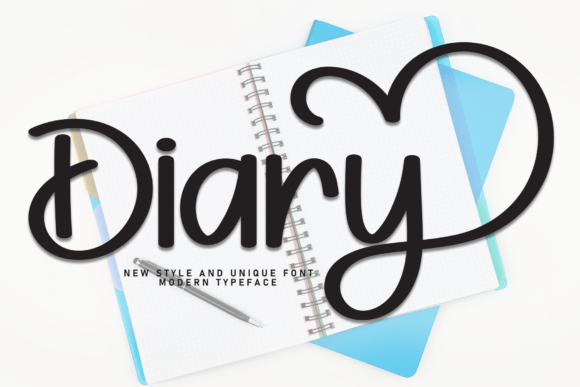
The Personal Touch: Unlocking the Power of Diary Font
Have you ever found yourself scribbling down ideas in the middle of the night, the only light coming from a faint moonbeam streaming through your window? That’s where the magic happens, and the words start flowing. It’s in these moments of creativity that we find our true selves, and our designs start to come alive.
That’s why we love Diary Font – a script handwritten font that captures the essence of real handwriting. Perfect for invitations, branding, and social media graphics, this font adds a personal touch to any project. Whether you’re going for elegant or cozy, Diary Font brings warmth and authenticity to your designs. With its fluid strokes and natural flow, it’s the perfect tool for designers looking to make a lasting impression.
Diary Font Key Features
- Unique Characteristics: The font’s distinctive, handwritten feel and cursive script make it ideal for creating personal and emotional connections with readers.
Diary Font Review
Overall, I think Diary Font is a sweet, charming font that could add a personal touch to various design projects. It has a certain whimsy to it that might appeal to those looking for a unique, handwritten feel.
- ✨ The font’s cursive style is well-executed, making it suitable for headings and titles.
- ✨ The subtle imperfections and variations in line width add a sense of authenticity, giving the font a more human feel.
- ✨ The font’s legibility is generally good, making it easy to read for most users.
- ⚠️ The font may not be suitable for large blocks of text, as the irregular line spacing and varying letter widths can make it difficult to read.
- ⚠️ The font’s aesthetic may not appeal to those who prefer more modern or clean designs.
- ⚠️ Some characters, such as the ‘q’ and ‘x’, may be difficult to distinguish, which could lead to readability issues.
In conclusion, while Diary Font has its limitations, it can be a great choice for designers who want to add a touch of personality to their projects. With careful usage, it can be a beautiful addition to the right design.
Tips for Getting the Most Out of Diary Font
Use Diary Font for personal projects, such as journaling, scrapbooking, or creating invitations. Experiment with different font sizes and colors to add visual interest. Combine Diary Font with other design elements, such as images or illustrations, to create a unique and eye-catching design.
Diary Font is ideal for:
- Journaling and scrapbooking
- Creating invitations and greeting cards
- Designing digital art and illustrations
- Adding a personal touch to presentations and documents